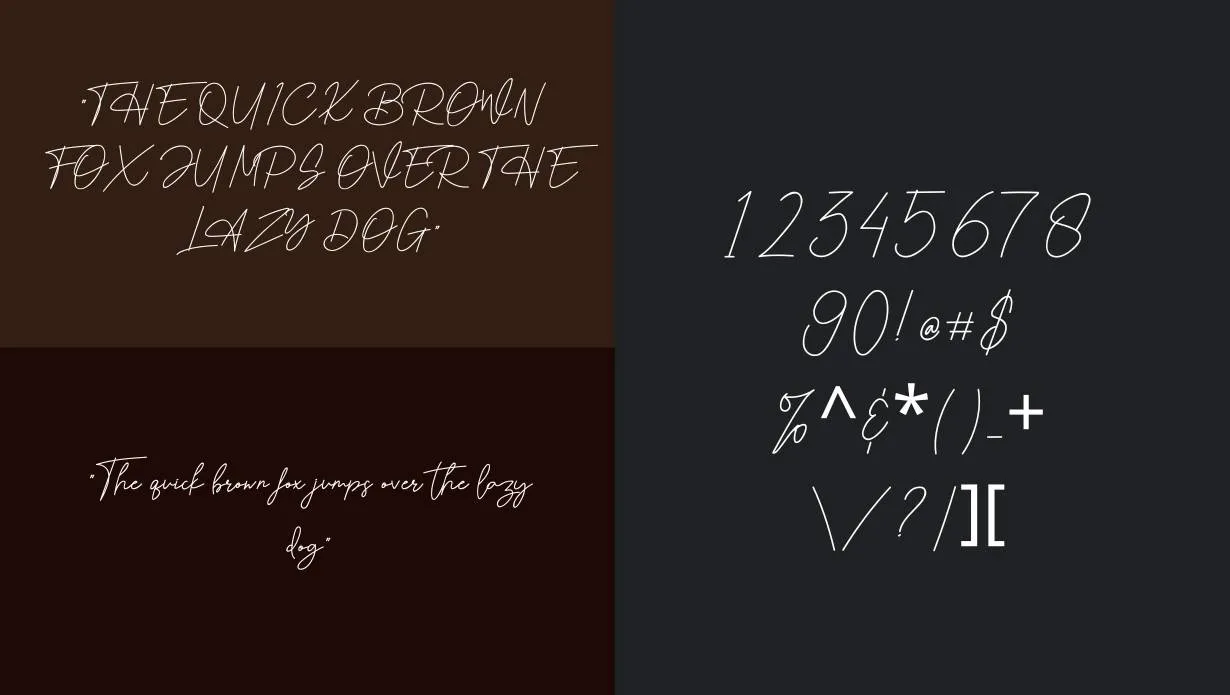
Today we’re presenting a new font style named Entahlah Font belongs to the Handwritten font family created by Yudi Pratama Chandra and released by Rantautype.
| Name | Entahlah Font |
| Designer | Yudi Pratama Chandra |
This stylish typeface comes with OTF format and contextual alternates, ligatures, stylistic alternates, and innovative standard characters.